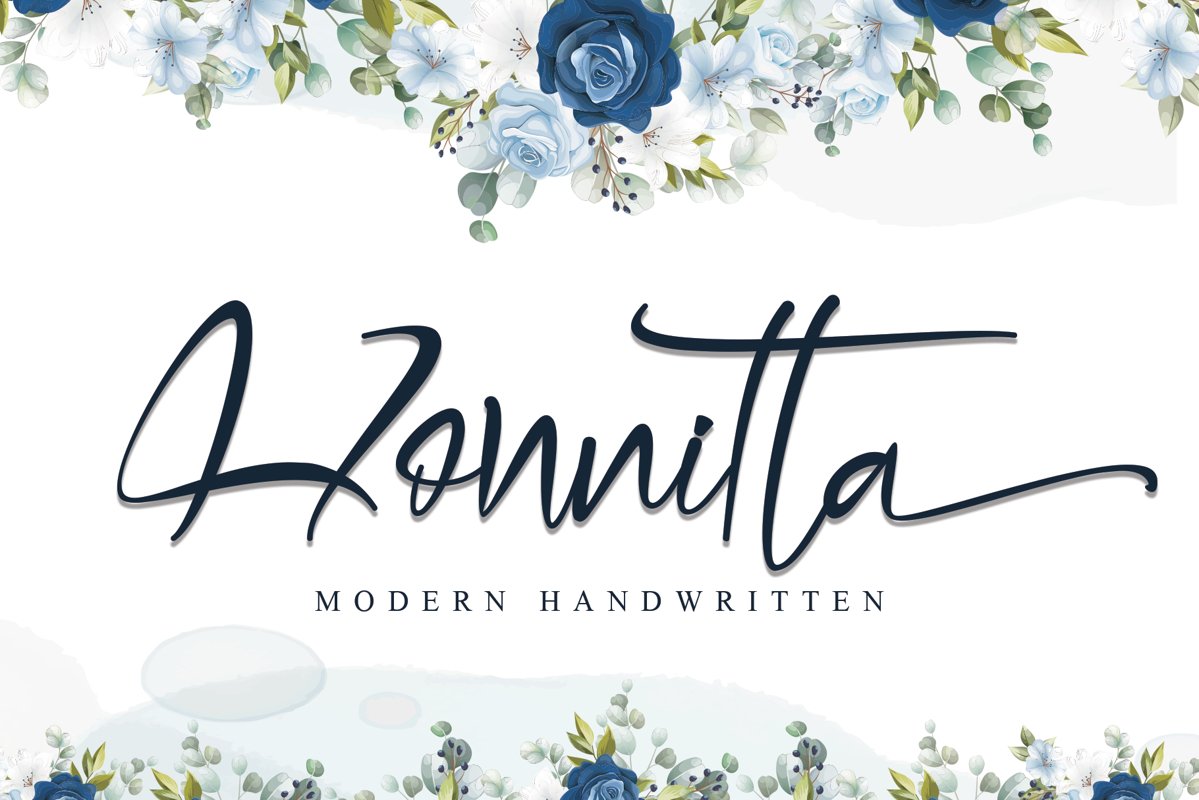
Honnitta is a handwritten
signature script with a modern look. It has good readability and contains
lots of glyph’s which give you the chance to give your designs a different
look, each time you use Honnitta. Because of its diversity, Honnitta can be
used for almost every design.